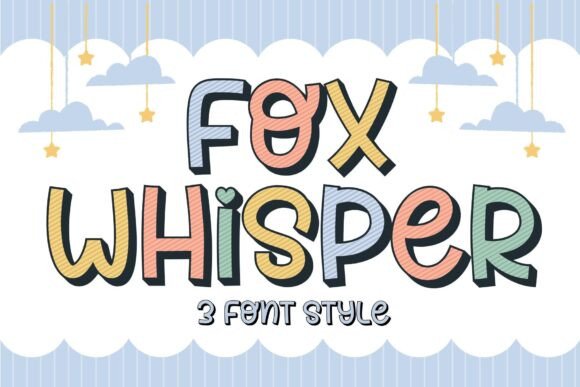
Introducing Fox Whisper Font: The Ultimate Playful Display Font for Creative Projects
Are you looking for a font that can add a touch of whimsy and playfulness to your creative projects? Look no further than Fox Whisper Font! This delightful display font is designed to bring a cheerful and friendly vibe to your designs, making it perfect for a wide range of applications, from children’s books to product packaging and branding.
Three Unique Styles to Suit Your Design Needs
One of the standout features of Fox Whisper Font is its versatility. The font comes in three unique styles: Regular, Strokes, and Shadow. Each style offers a distinct look and feel, allowing you to choose the one that best suits your design needs.
- Regular: The Regular style features a bold and solid look, perfect for making a statement in your designs.
- Strokes: The Strokes style has a textured, sketch-like effect that adds a touch of hand-drawn charm to your designs.
- Shadow: The Shadow style features a 3D-like shadow effect that adds depth and dimension to your designs.
Perfect for a Wide Range of Design Applications
Fox Whisper Font is an incredibly versatile font that can be used in a wide range of design applications. Some of the most popular uses for this font include:
- Children’s Books: The playful and whimsical nature of Fox Whisper Font makes it perfect for use in children’s books, adding a touch of fun and personality to your storytelling.
- Greeting Cards: The font’s friendly and approachable vibe makes it ideal for use in greeting cards, allowing you to add a personal touch to your messages.
- Product Packaging: Fox Whisper Font can add a touch of personality to your product packaging, helping your brand stand out on store shelves.
- Cute Branding: The font’s playful and whimsical nature makes it perfect for use in branding and advertising, allowing you to create a fun and friendly image for your business.
A Font that Radiates Warmth and Friendliness
Fox Whisper Font is designed to radiate warmth and friendliness, making it perfect for designs that require a personal touch. The font features:
- Hand-drawn Aesthetic: The font has a charming, hand-drawn aesthetic that adds a touch of personality to your designs.
- Soft Edges: The font’s soft edges give it a friendly and approachable vibe, making it perfect for designs that require a gentle touch.
- Charming Details: The font features charming details like heart accents, adding a touch of whimsy and playfulness to your designs.
Ideal for Crafting, Digital Artwork, and Personalized Gifts
Fox Whisper Font is perfect for a wide range of creative projects, including:
- Crafting: The font’s playful and whimsical nature makes it perfect for use in crafting projects, such as handmade cards and gift tags.
- Digital Artwork: Fox Whisper Font can add a touch of personality to your digital artwork, making it perfect for use in illustrations, graphics, and more.
- Personalized Gifts: The font’s friendly and approachable vibe makes it ideal for use in personalized gifts, such as customized mugs, t-shirts, and more.
Let Your Creativity Shine with Fox Whisper Font
In conclusion, Fox Whisper Font is a delightful and stylish typeface that can add a touch of whimsy and playfulness to your creative projects. With its three unique styles, hand-drawn aesthetic, and charming details, this font is perfect for a wide range of design applications. Whether you’re working on a children’s book, greeting card, or digital artwork, Fox Whisper Font is sure to bring a smile to your face and a touch of personality to your designs.